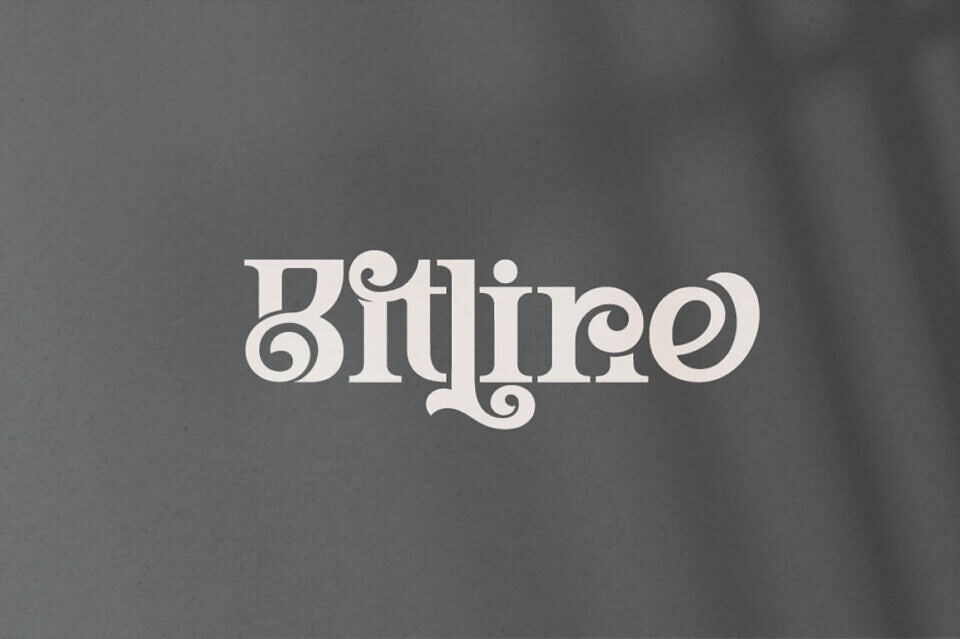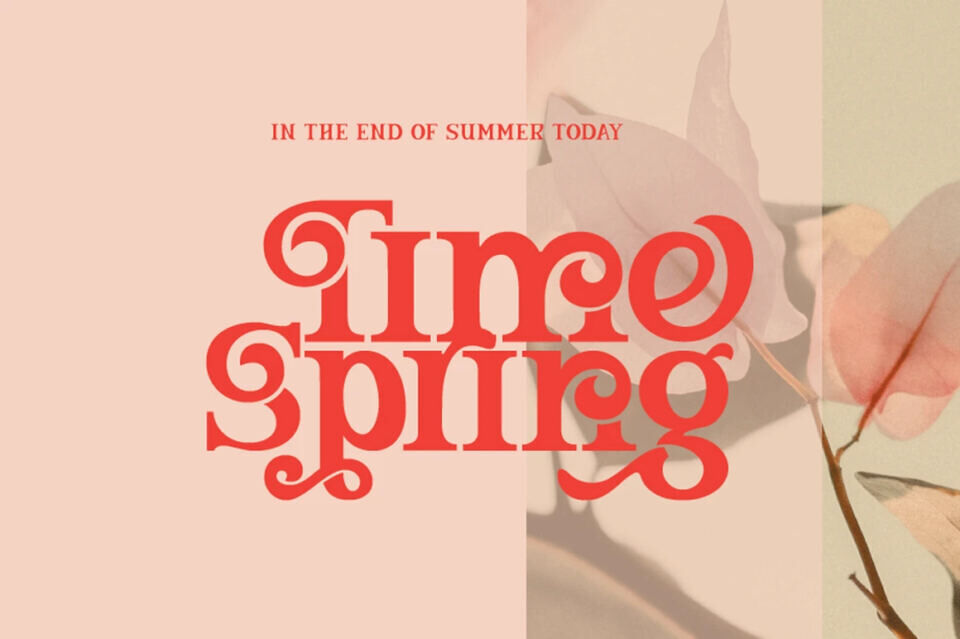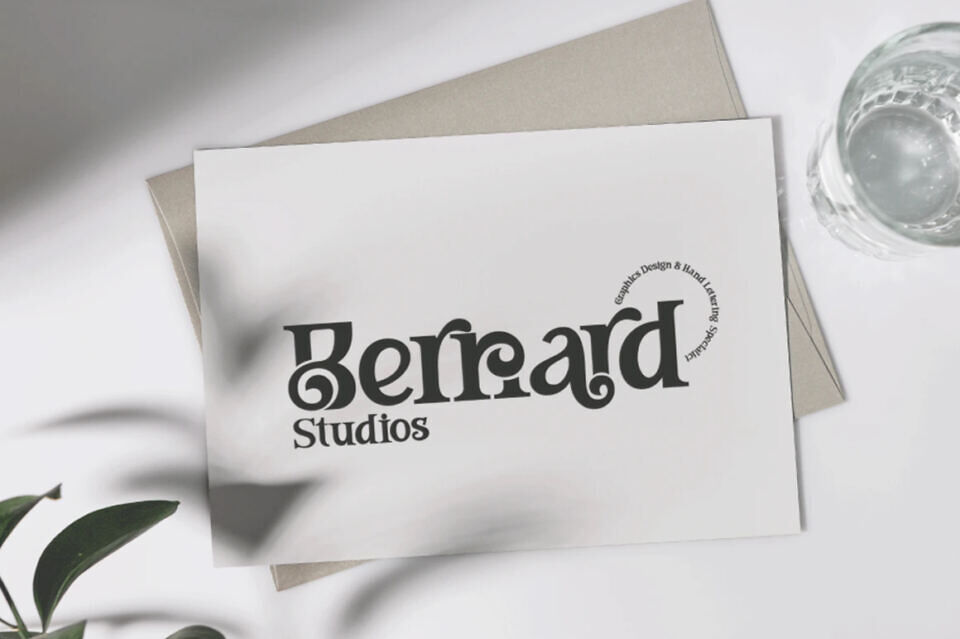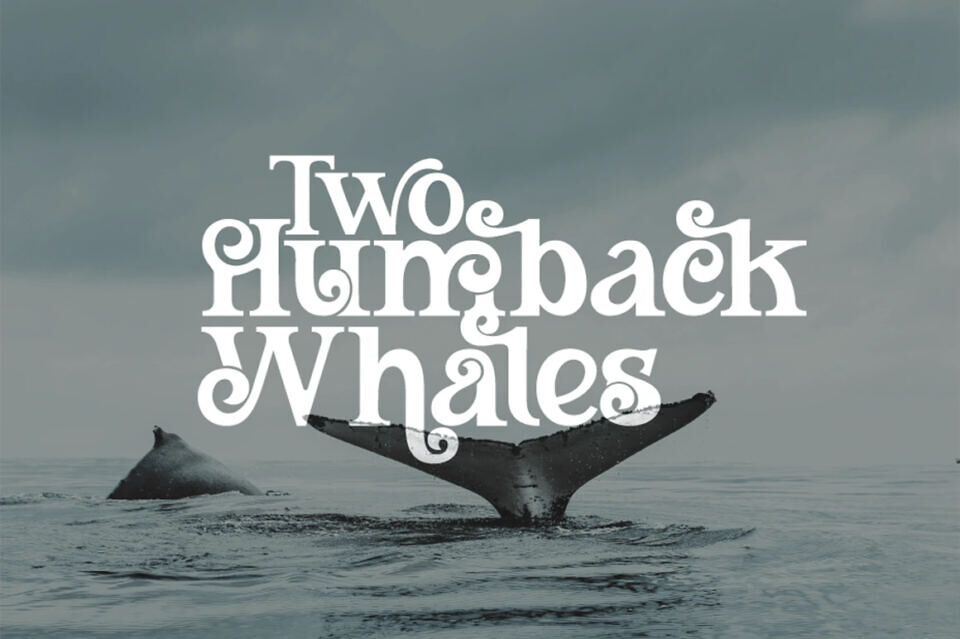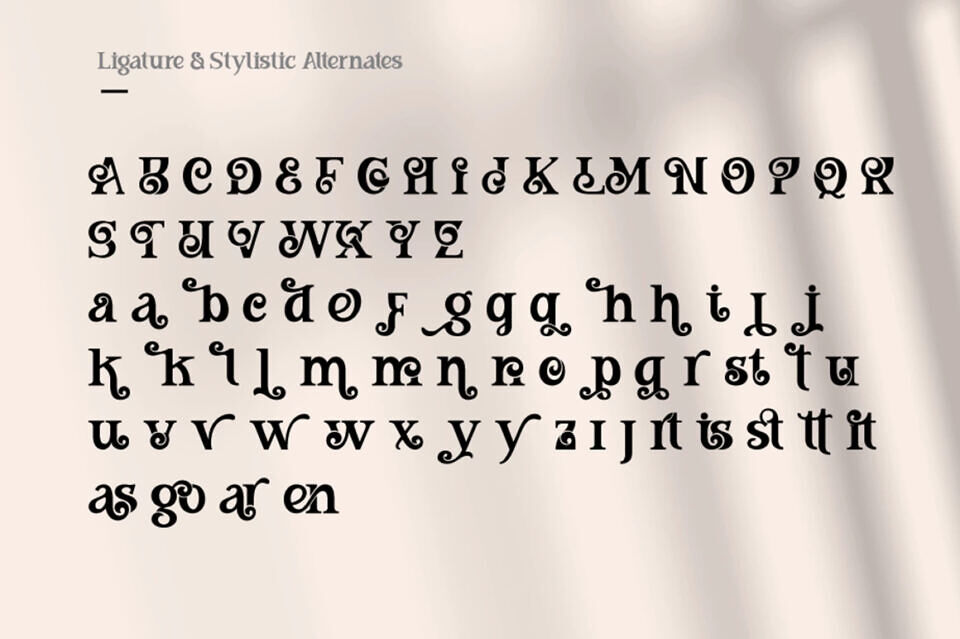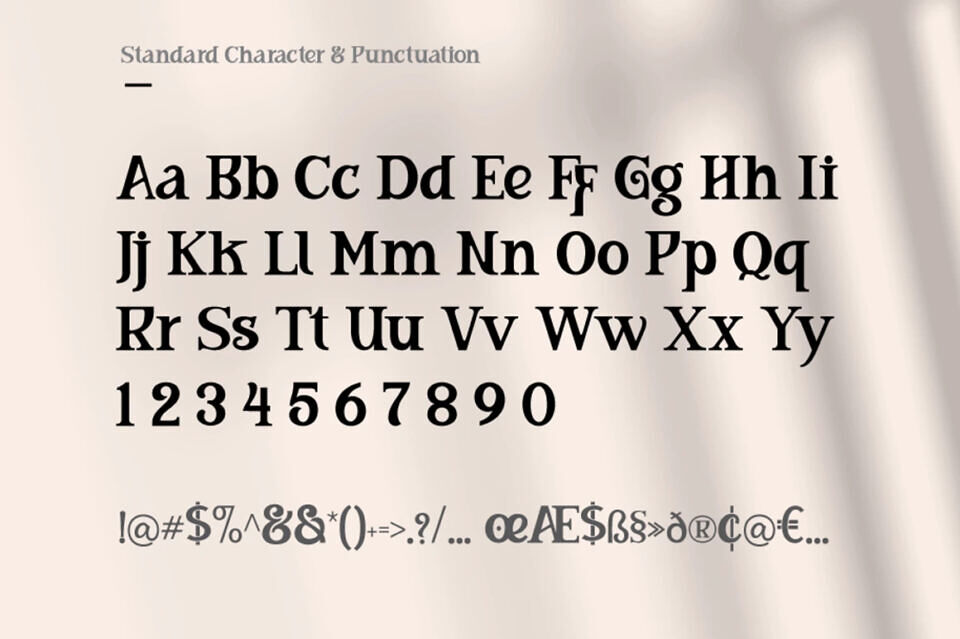
Bitline Font
Bitline is bold swirly font by Grontype. It comes with more alternate style each glyphs and ligature. The font is unique and modern vintage look. This is an adaptable font suitable for any project types, from magazine header, wedding invitation, branding design, poster or flyer header design, until logo tagline and so much more.